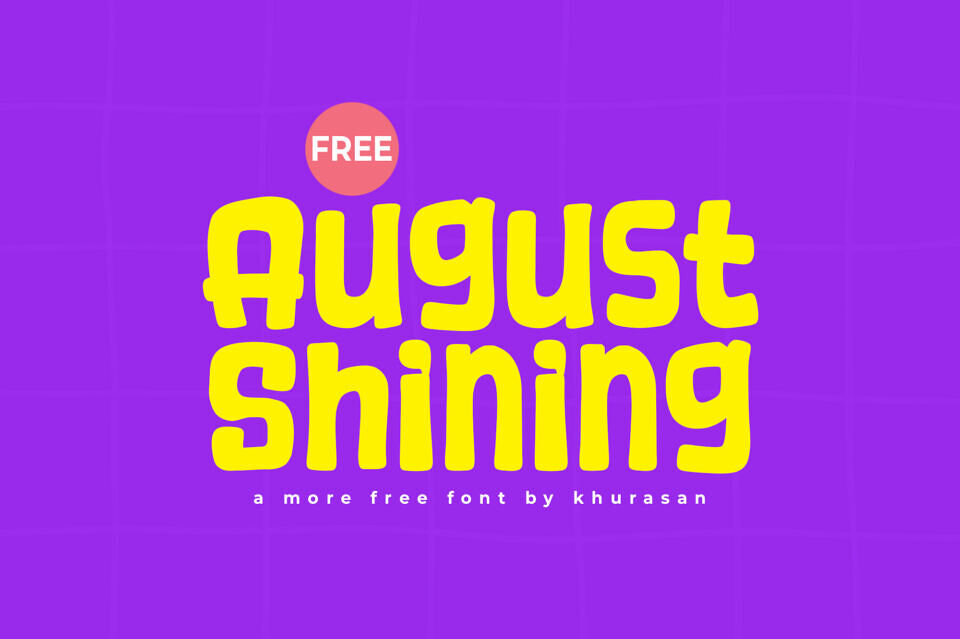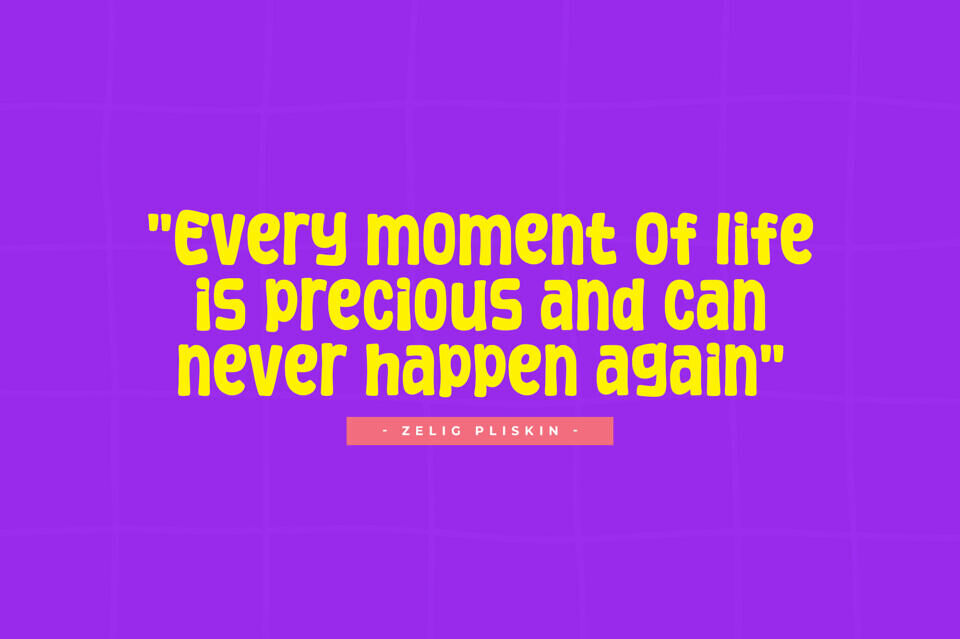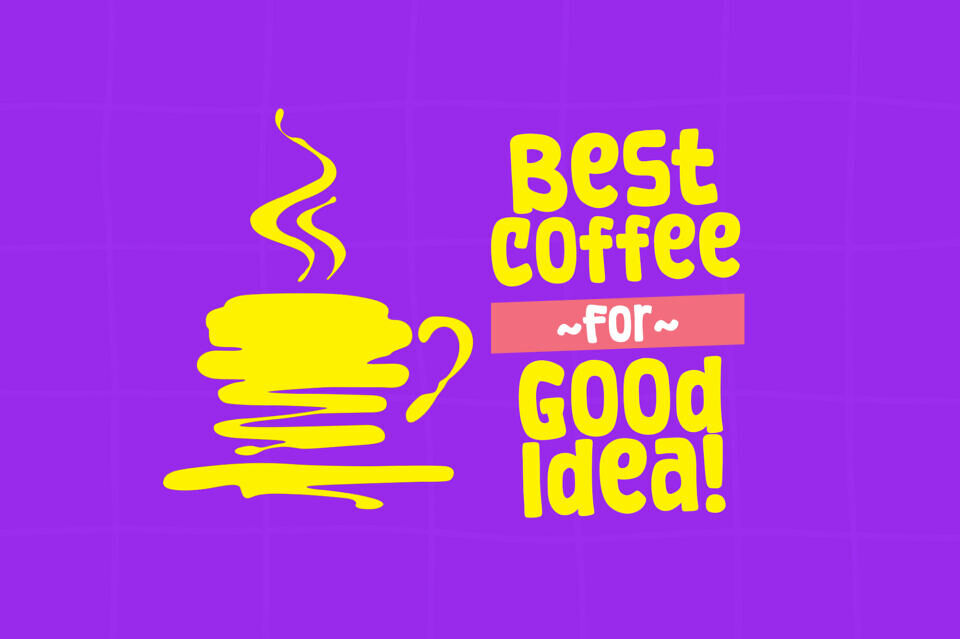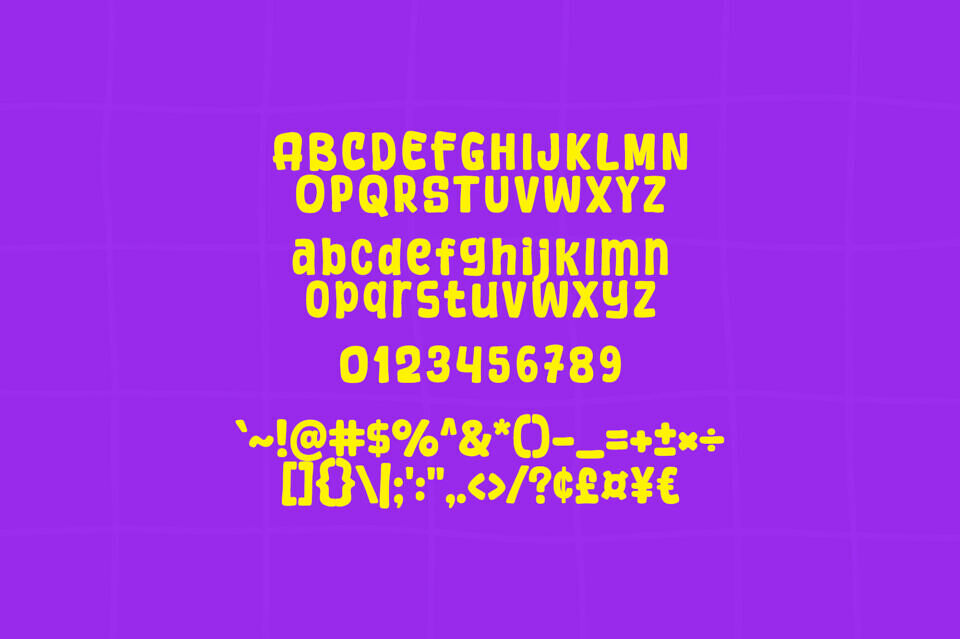
August Shining is a modern and cute display font perfect for posters, logos, magazines, book covers, banners, and many more! Get this amazing font, and use it to create lovely designs.